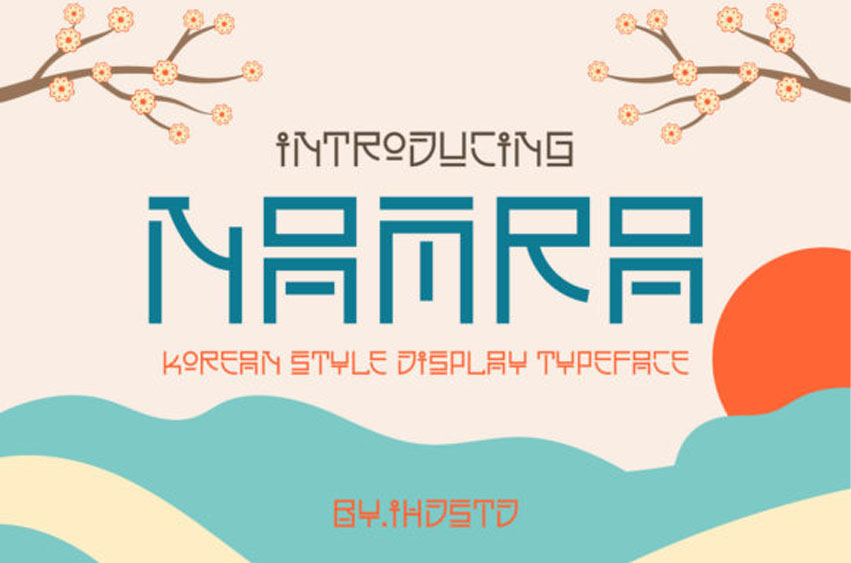
Namra Font
Namra Font is a cool, Korean styled display font. It will look stunning on any poster, flyer or print.
Use this font for your designs and explore its endless possibilities.